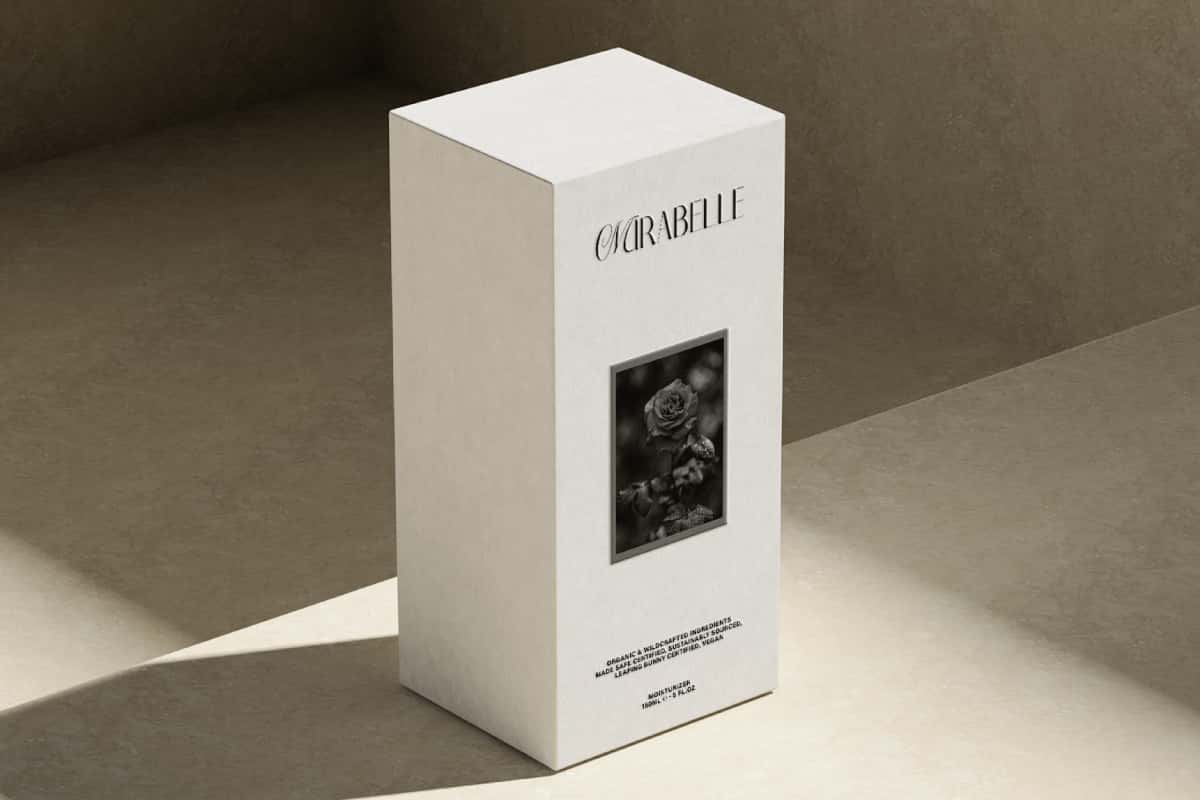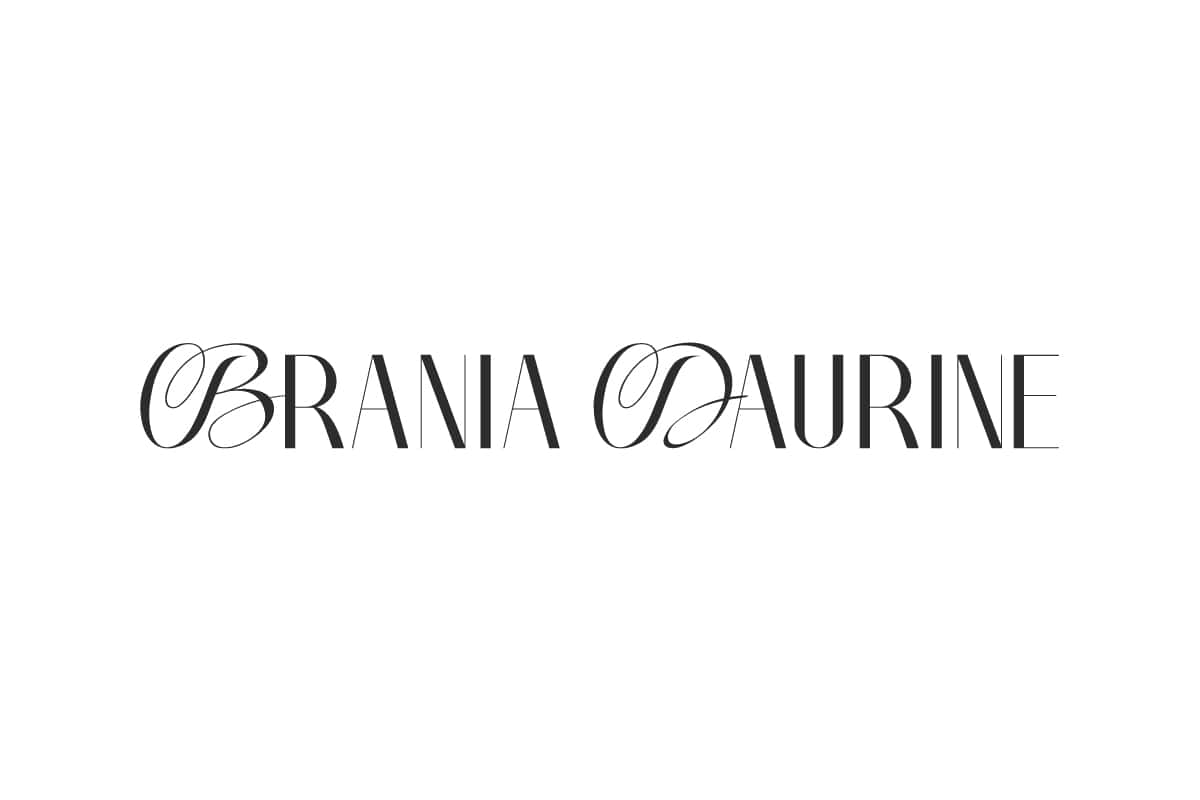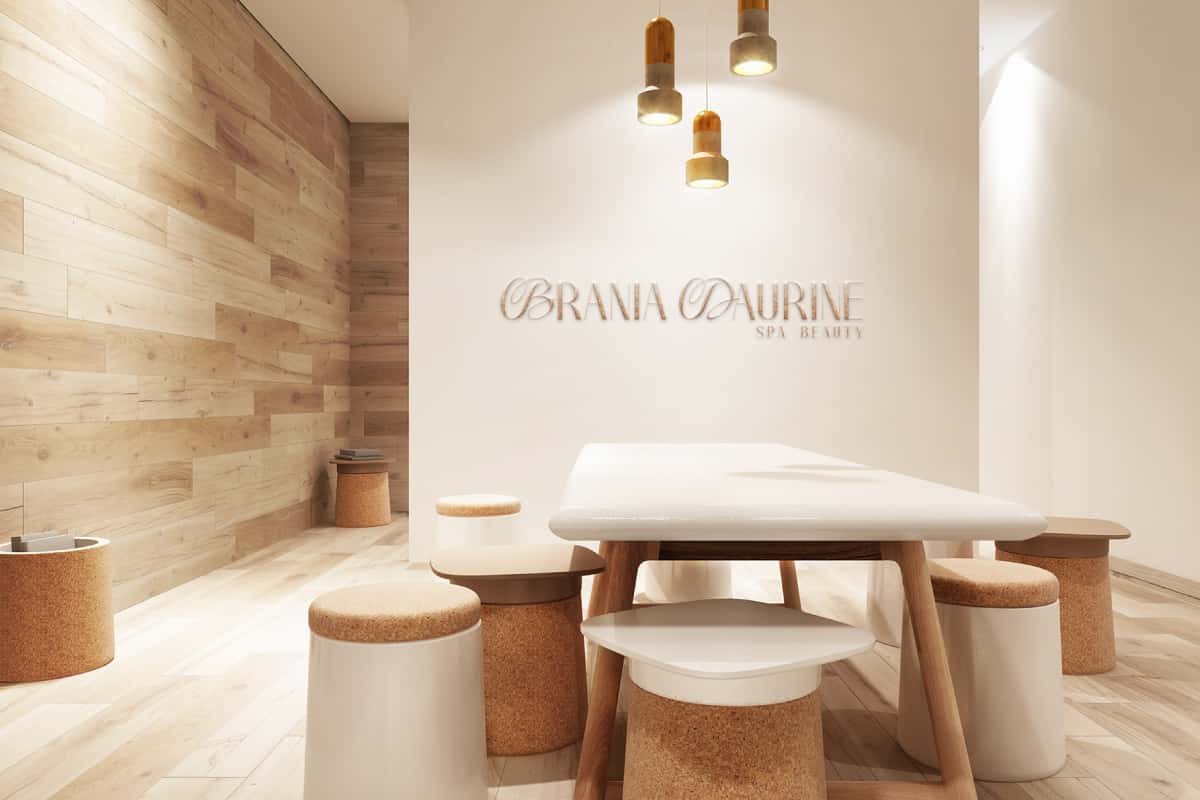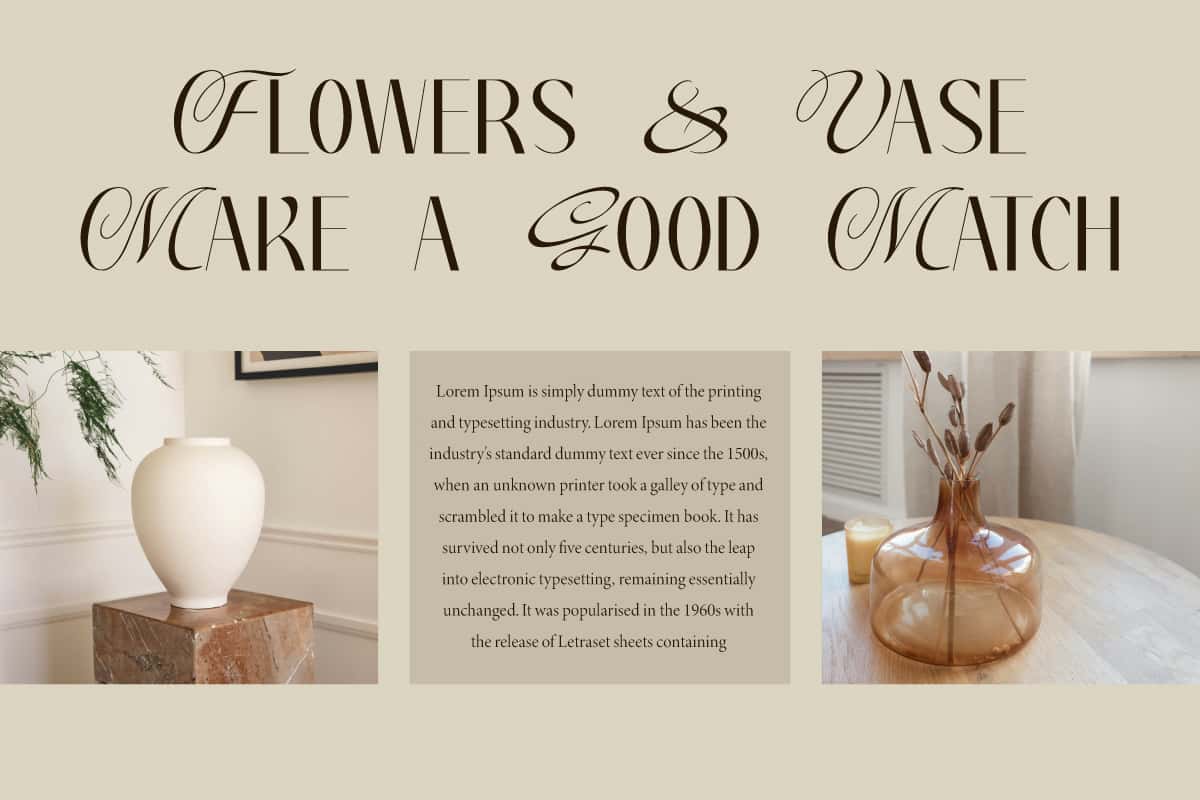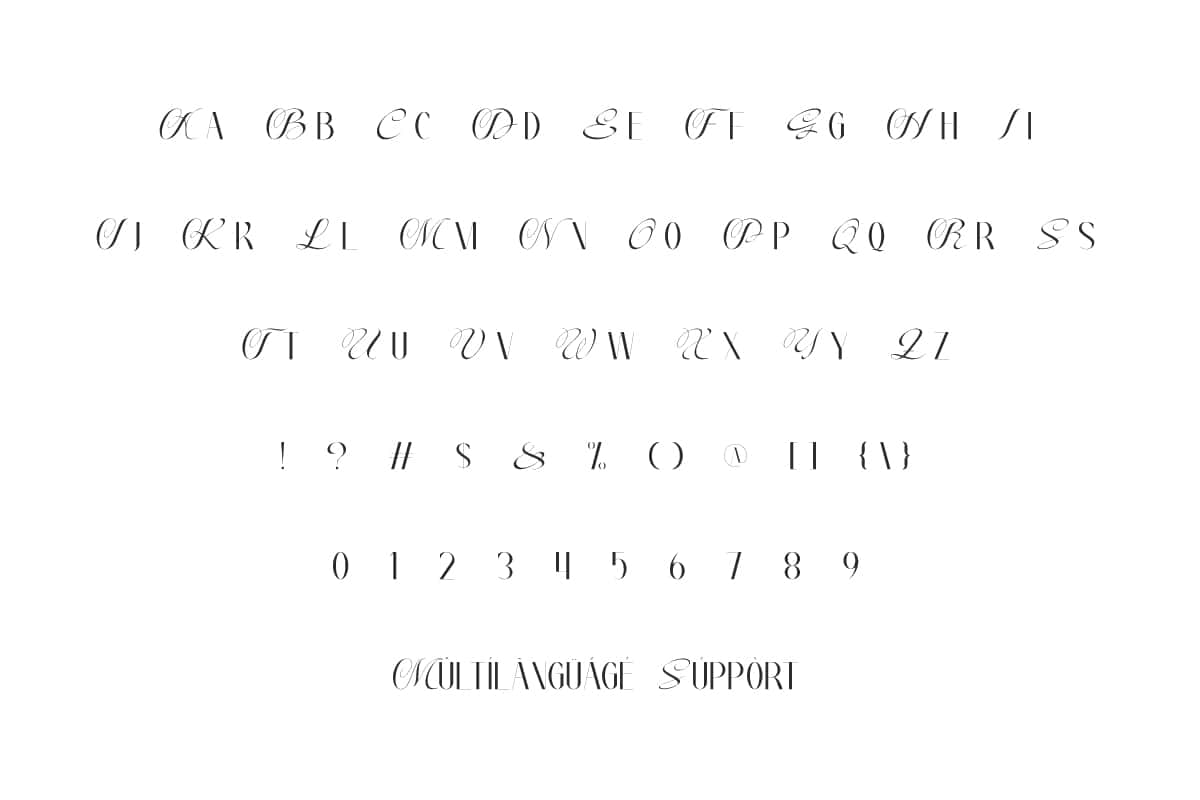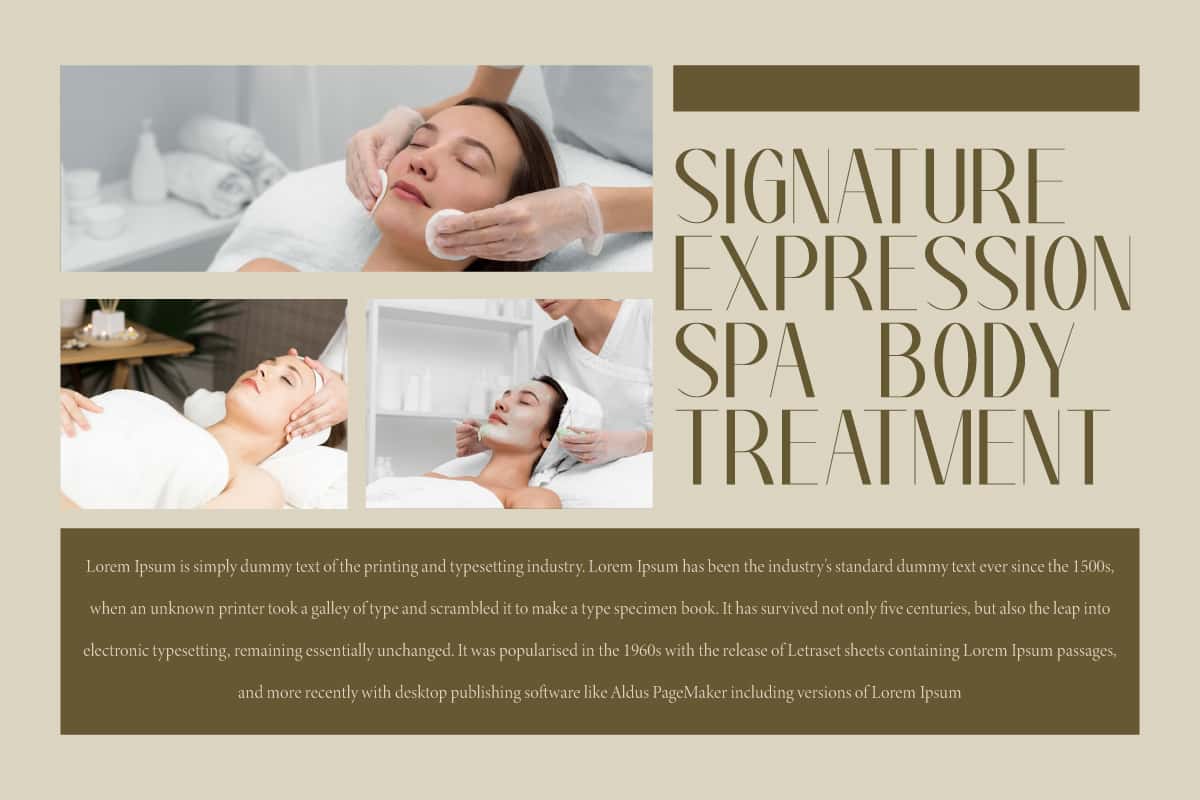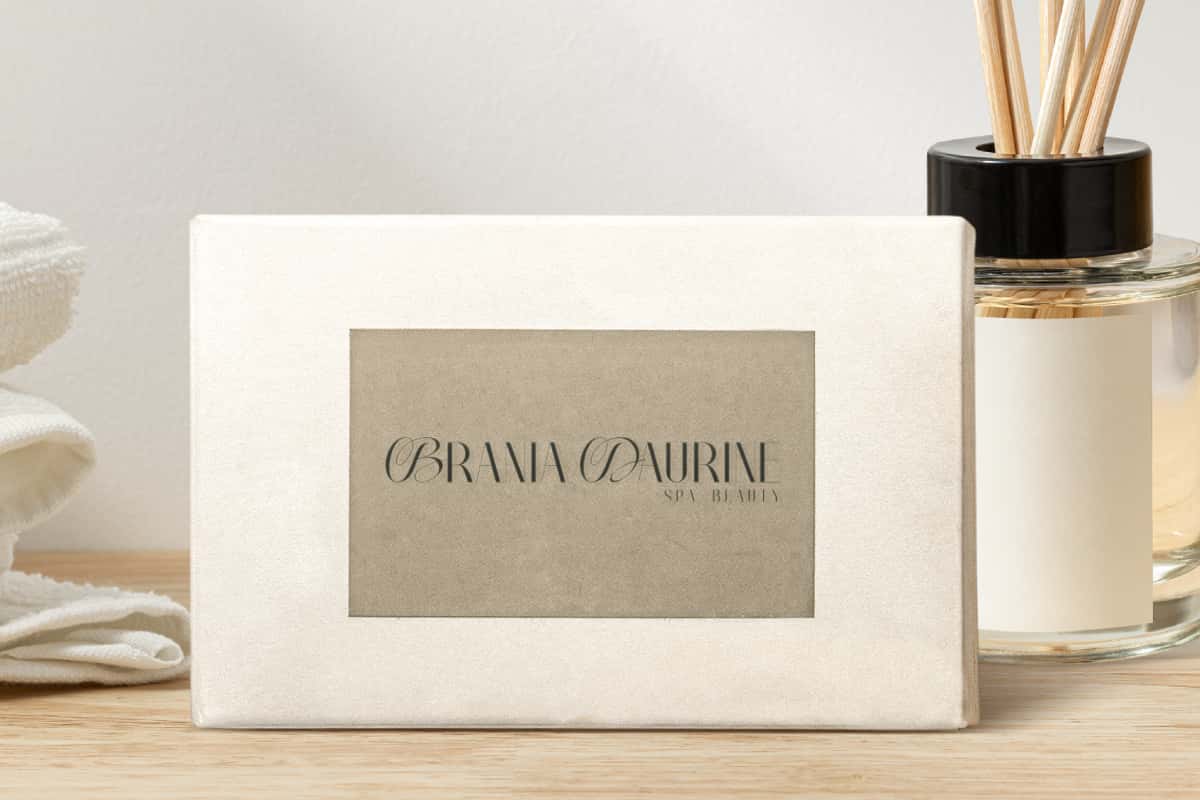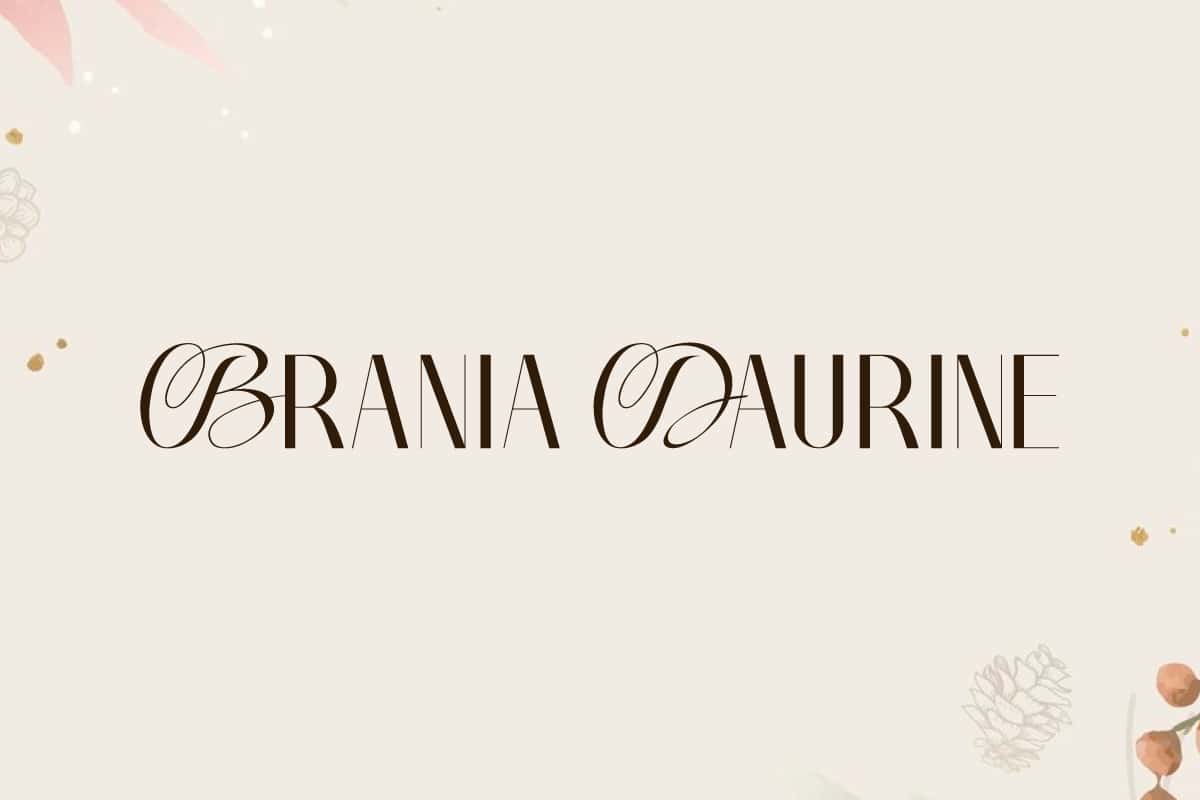
Brania Daurine Font
Brania Daurine Font is a unique visually aesthetic display font. Defining elegance and creative art through typography design.
Brania Daurine Font is a modern fancy script font that gives you a versatile set of fonts that can be used and loved in various design projects. Perfect for boutique, fashion, florist, graphic design, home furniture, super luxury hotel, publisher, real estate, high class restaurant, spa beauty, writer, and much more.
Brania Daurine Font includes a complete set of ALL CAPS for Uppercase and Lowercase in two different types, Numbers, Punctuation, and Symbols. This is arguably a charming combination, perfectly designed for each other. Used together in a word or not. Ideal for banners, book covers, brochure, headers, labels, logos, packaging, poster, titles, wall sign, website, etc.